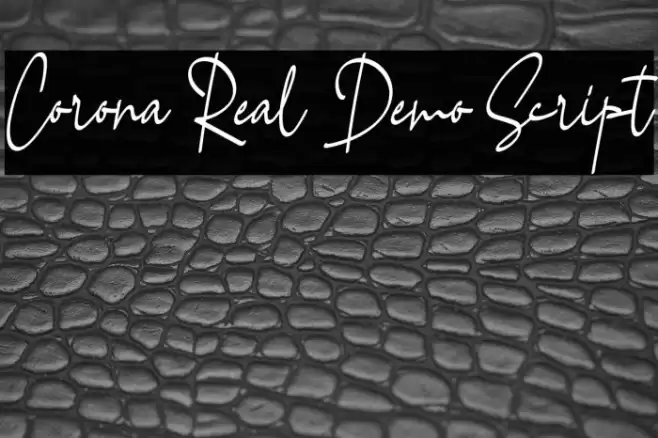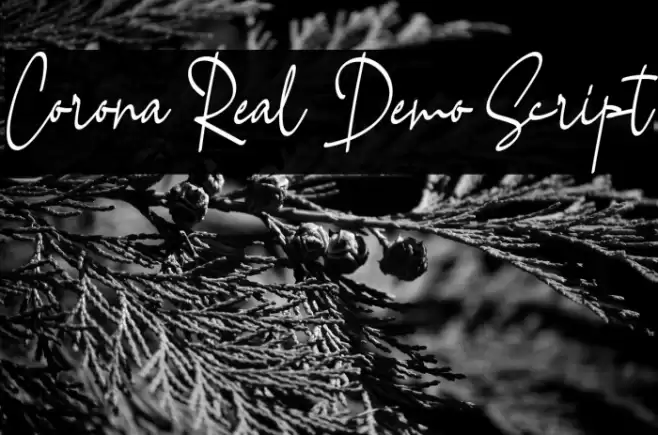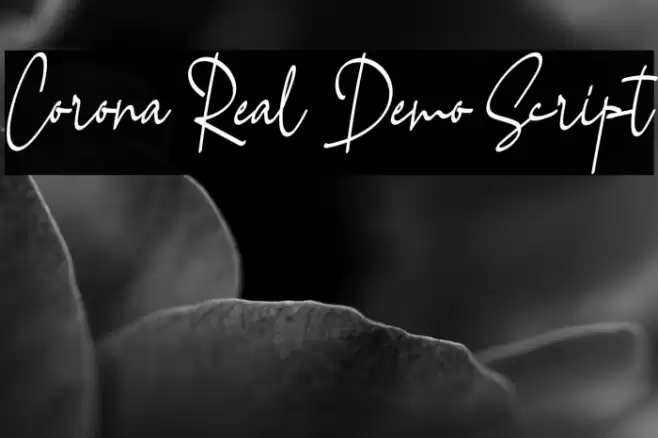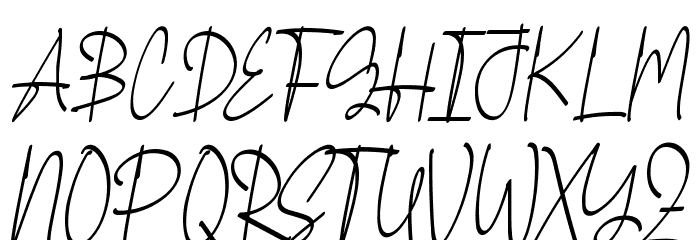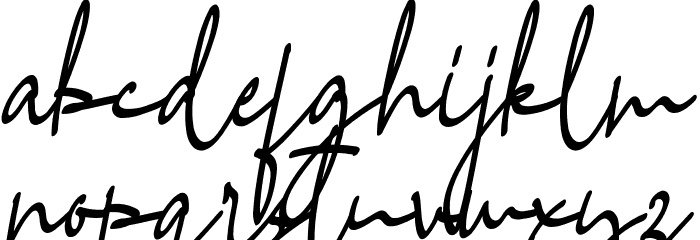
Corona Real Demo Script Font
Corona Real Demo Script Description
This font features a dynamic and fluid script style, characterized by its handwritten appearance. The uppercase letters are tall and slightly narrow, with a playful yet elegant flair. The lowercase letters maintain a consistent flow, enhancing the cursive nature of the font. The strokes are smooth and continuous, giving it a natural and authentic handwritten feel. The font includes a full set of uppercase and lowercase letters, numbers, and a selection of special characters. Its design is both expressive and versatile, suitable for a variety of creative applications.
A fluid and dynamic handwritten script font with elegant cursive strokes from Uncategorized fonts.
- Font: Corona Real Demo Script
- Proposed Projects: Ideal for wedding invitations, greeting cards, branding projects, and personal signatures.
- Use Case: Logos, Invitations, Personal Signatures